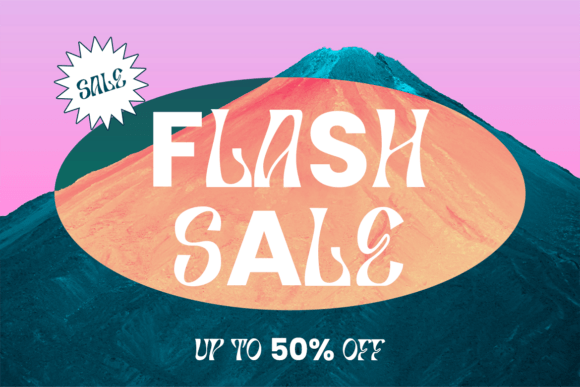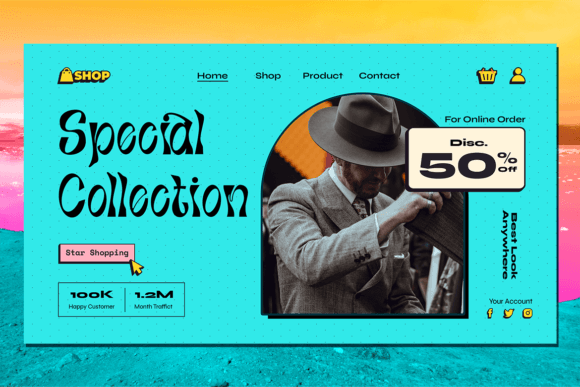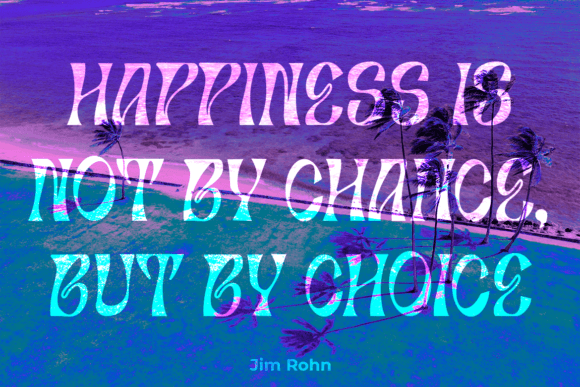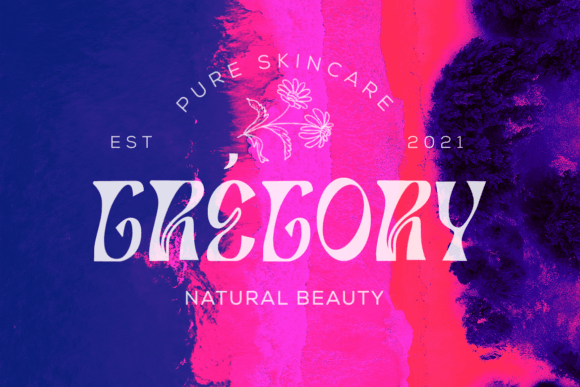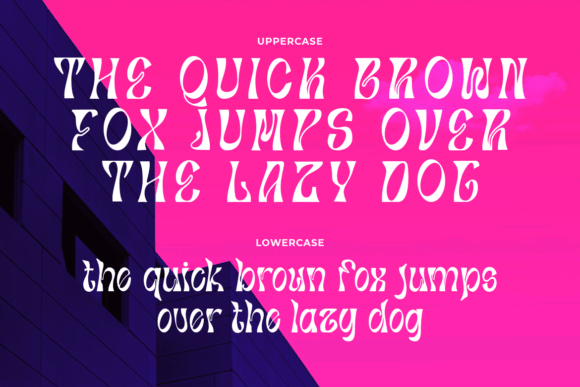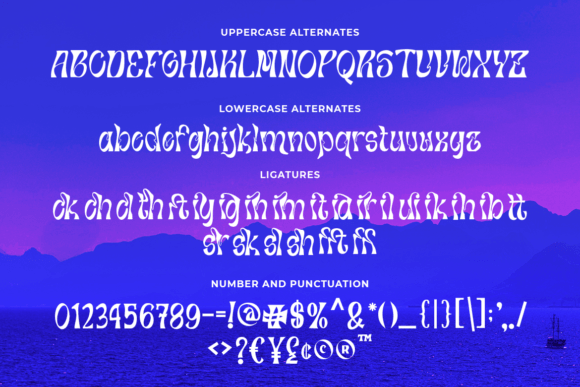
Discover the Magic of the Bethlehem Font
Have you ever been scrolling through social media and stumbled upon a beautifully designed post that instantly caught your eye? For me, it’s those small moments of creative genius that remind me why I love design. The way a simple yet elegant font can elevate an entire message is truly remarkable.
Speaking of elegant fonts, let me introduce you to the Bethlehem Font – a typeface that’s as charming as it is versatile. This lovely font is designed to add a touch of sophistication to any project, from branding and logo design to wedding invitations and product packaging. With its glistening typeface design and solid character font, the Bethlehem Font is perfect for designers looking to add a personal touch to their work.
What sets the Bethlehem Font apart is its PUA encoding, making it easy to access all the glyphs and ligatures with ease. This means you can get creative with your designs without any hassle, and that’s what makes it so valuable for designers like you.
Bethlehem Font Key Features
- Font Family: Bethlehem is a display font family, designed to evoke a sense of elegance and sophistication.
- Unique Characteristics: Bethlehem features intricate details, ornate flourishes, and a vintage aesthetic, making it perfect for adding a touch of luxury and sophistication to designs.
Bethlehem Font Review
As a designer, I recently had the opportunity to work with the Bethlehem Font, and I must say, it’s a mixed bag. ✨ Here are some things that I think work well:
- Unique and interesting design aesthetic, perfect for adding some personality to your projects.
- Support for a wide range of languages, making it a great choice for global projects.
However, there are also some limitations that I think are worth noting ⚠️:
- Limited font styles, which can make it difficult to achieve a consistent look across different elements.
- No bold or italic versions, which can limit its use in certain situations.
- Some characters may not be available in certain font styles, which can be frustrating to work with.
Overall, I would say that the Bethlehem Font is a solid choice for designers who want to add some personality to their projects. While it has its limitations, it’s a great option for projects where you want to stand out from the crowd. Just be aware of its limitations and plan accordingly.
Bethlehem Font: A Practical Application Guide
Tips for Getting the Most Out of the Bethlehem Font
To get the most out of the Bethlehem Font, use it for designs that require a classic and elegant look. Some common use cases include:
1. Wedding invitations and stationery.
2. Luxury branding and packaging.
3. Traditional and vintage-inspired designs.
The Bethlehem Font is ideal for designs that require a classic and elegant look. Some common use cases include:
1. Wedding invitations and stationery.
2. Luxury branding and packaging.
3. Traditional and vintage-inspired designs.
Alternatives to Bethlehem Font
The Great Vibes Font is a modern, elegant script font that can be used for various design purposes, including invitations, posters, and wedding designs. It’s ideal for creating a luxurious and sophisticated look. Compared to Bethlehem Font, Great Vibes Font has a more refined and polished appearance, making it suitable for high-end designs.